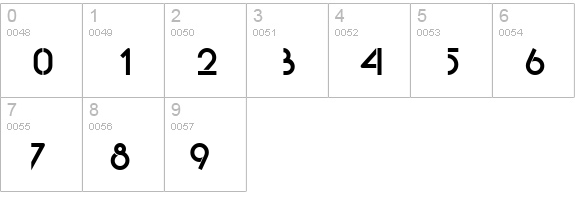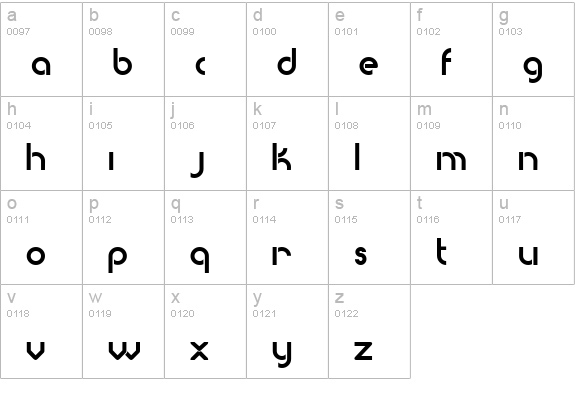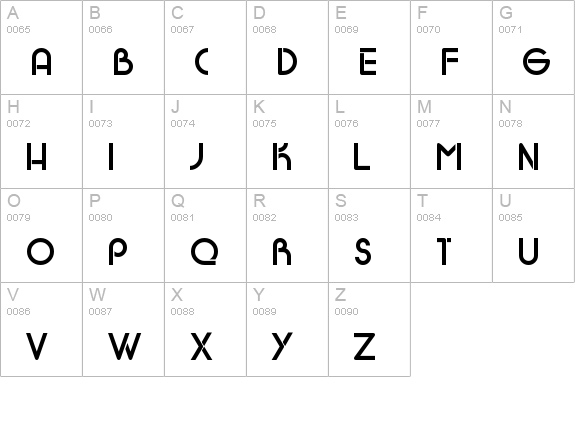
Baby Face Font Details
Introducing Baby Face, a whimsical and playful font that captures the innocence and charm of childhood. This delightful typeface is perfect for a wide range of creative projects, from adorable invitations and greeting cards to captivating children's books and vibrant posters. Baby Face exudes a sense of warmth and friendliness with its soft rounded edges and gentle curves. Each letter is carefully crafted to resemble the endearing features of a baby's face, making it utterly irresistible. Its simplicity and readability make it a versatile choice for both digital and print designs. What makes Baby Face even more appealing is that it is absolutely free! That's right, this enchanting font is freely available to download at FontsMarket.com, ensuring that everyone can add a touch of youthful charm to their projects without breaking the bank. Whether you're a professional designer or a DIY enthusiast, Baby Face offers a delightful way to express creativity without any cost. Bring a smile to your audience's faces with Baby Face font and let it transport them to a world filled with joy and wonder. With its freely accessible download, you can easily incorporate this delightful typeface into your designs and spread the charm of childhood to all who encounter it. Don't miss the opportunity to add a touch of innocence and playfulness to your next project with Baby Face font, available for free at FontsMarket.com.